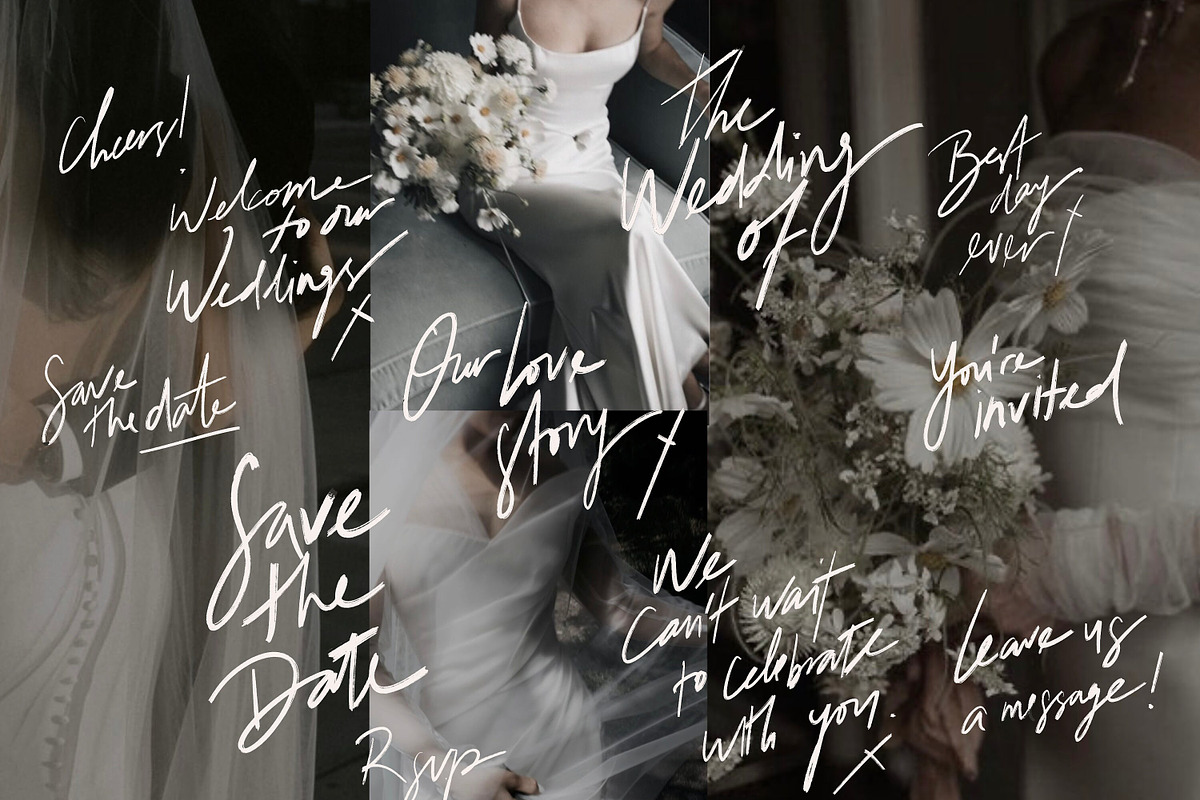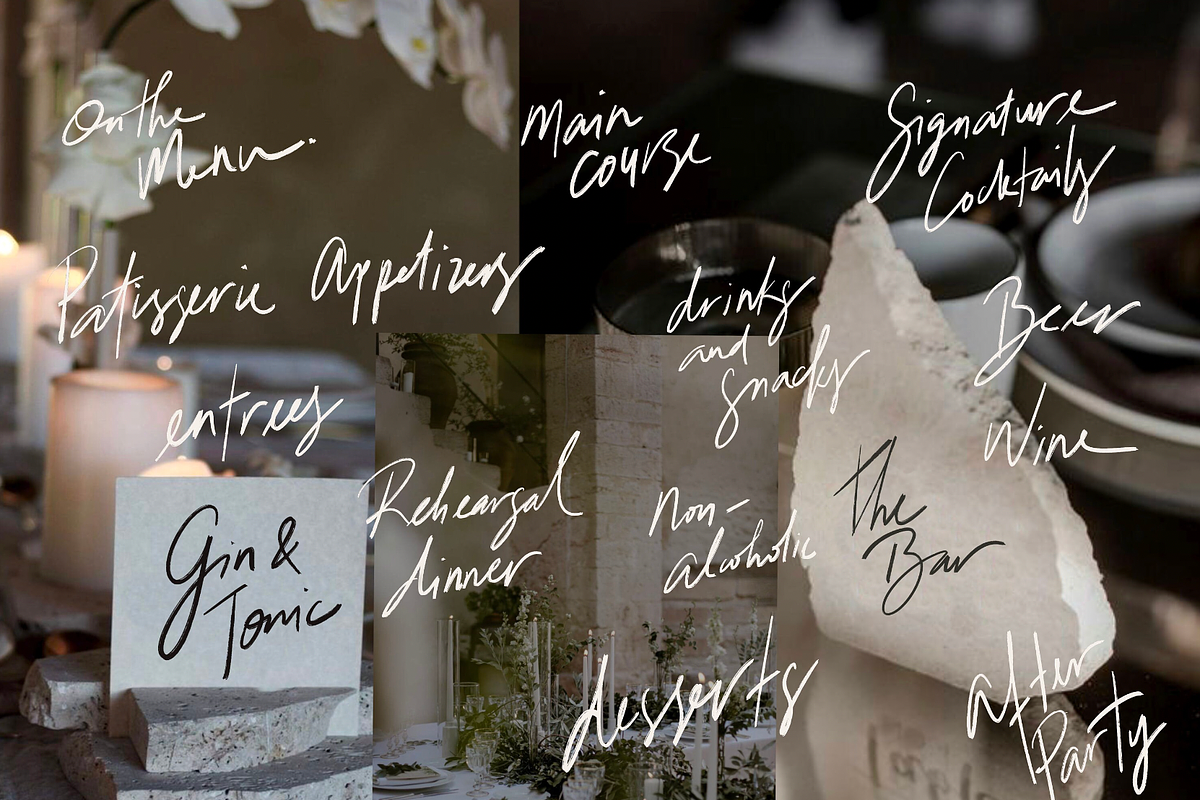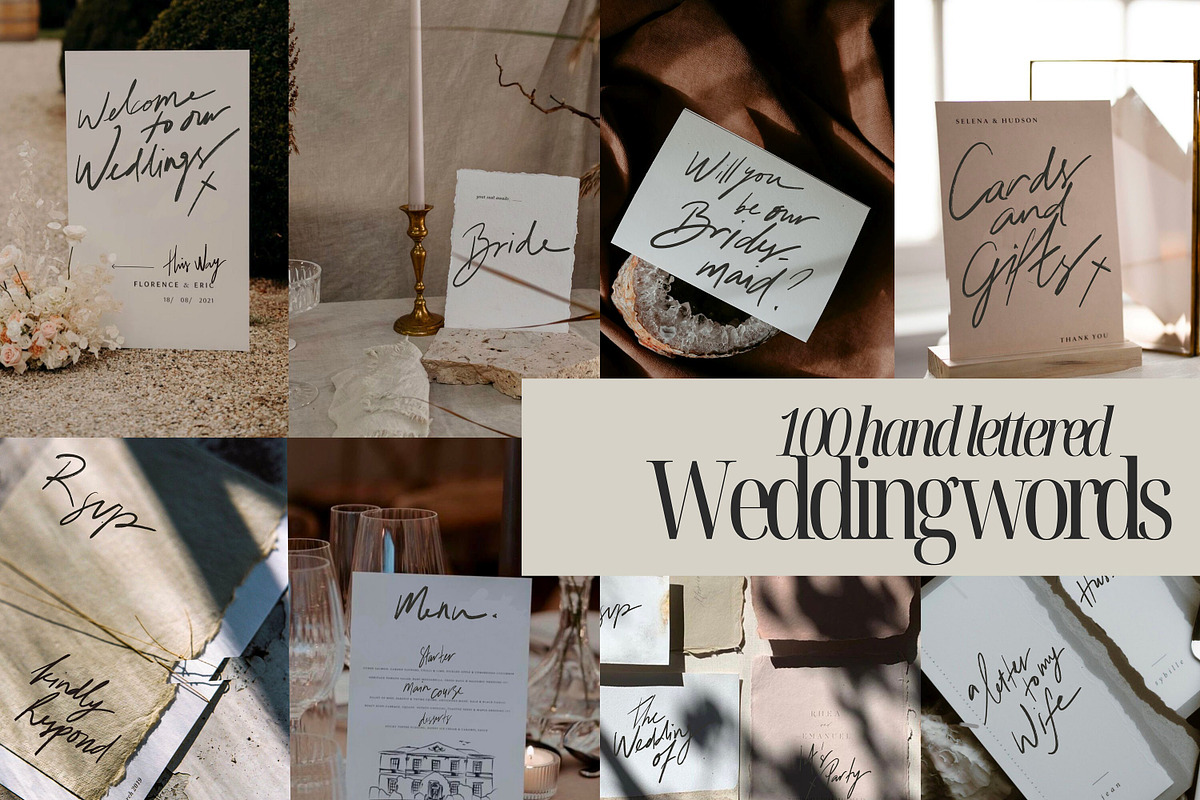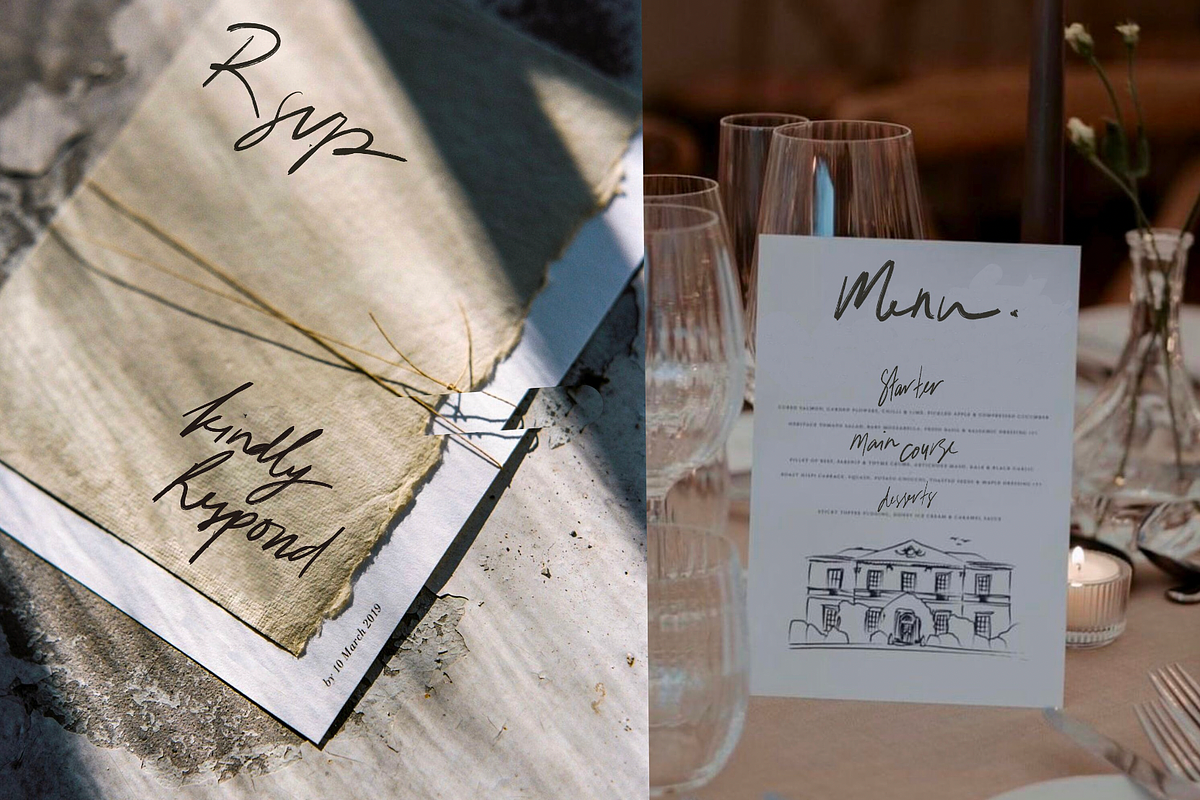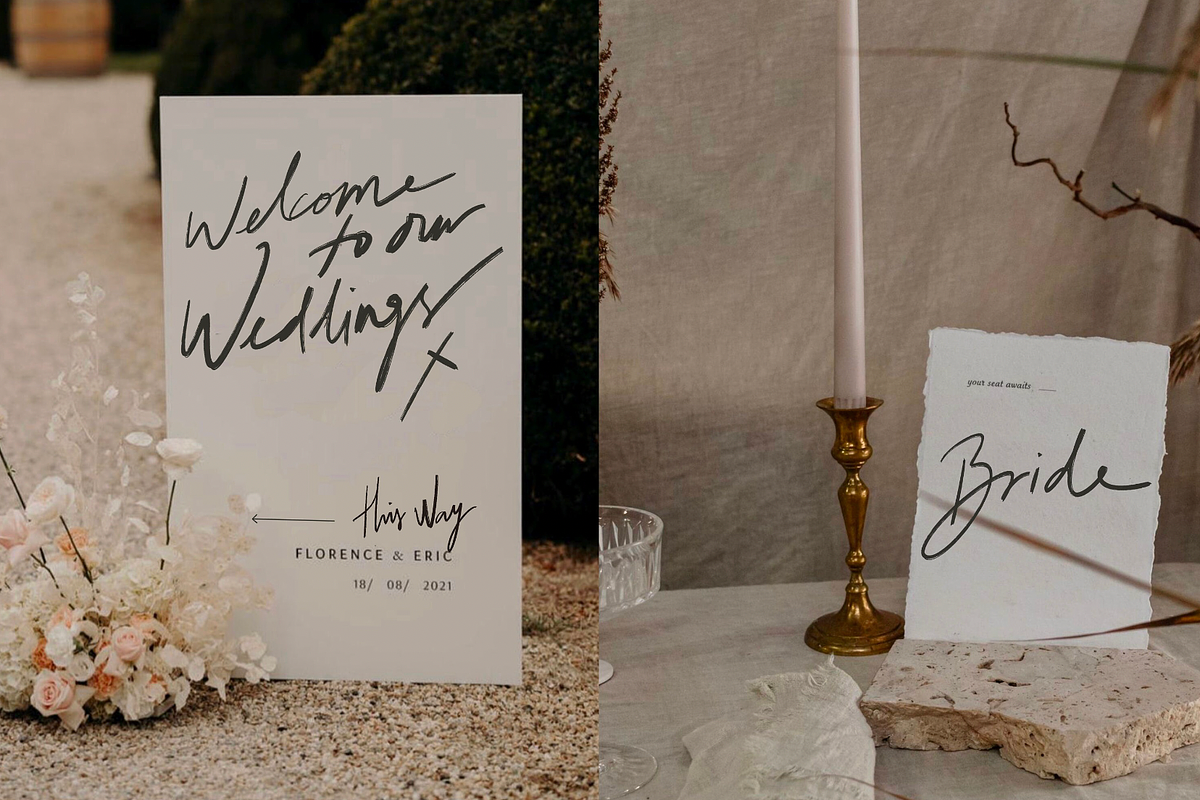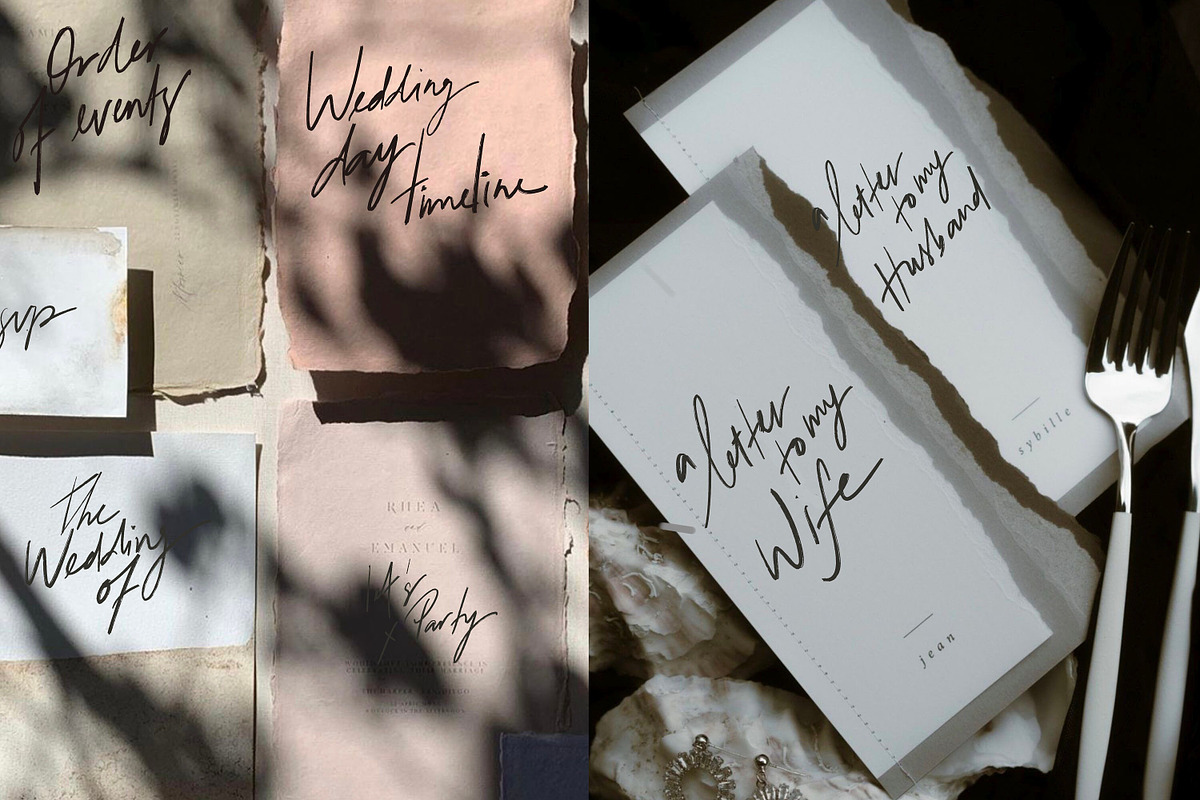
100 hand lettered PNG Wedding Sign
100 hand lettered wedding words, for signage, stationary, decor and more.
Elevate your wedding aesthetics with this collection of 100 meticulously crafted hand-lettered PNG files. Perfect for adding a touch of elegance to wedding signage, menus, RSVPs, invitations, and decor. This versatile set features a variety of stunning hand-lettered wedding words that can also enhance the charm of your website. Make your special day even more memorable with these beautifully designed elements.